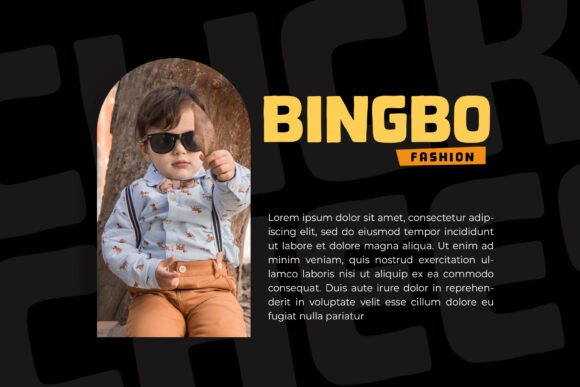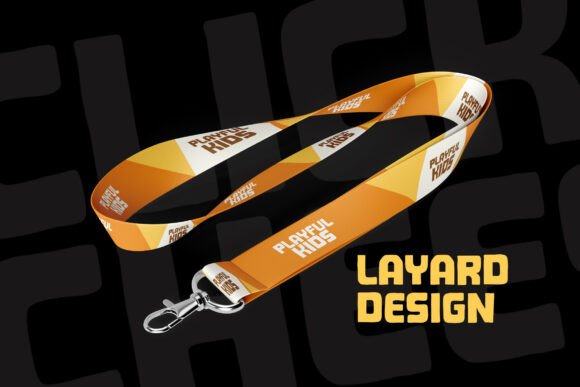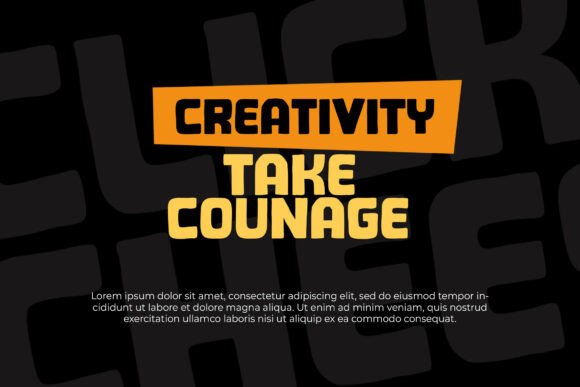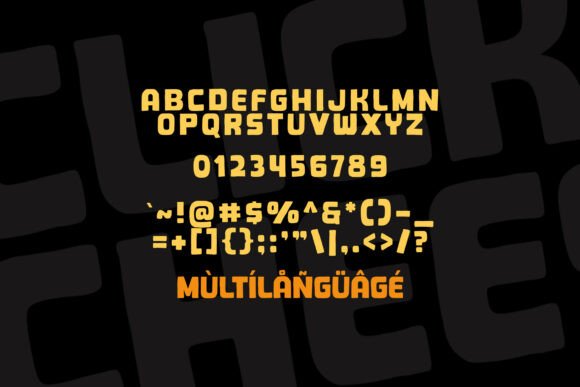
The Moment of Creative Inspiration
Have you ever been stuck in a design rut, struggling to find the perfect font to bring your vision to life? That’s when the spark of creativity strikes, and you start searching for something truly unique and eye-catching. For designers, the hunt for the perfect font can be a thrilling adventure, and we’re excited to introduce you to a game-changing find – the Click Cheese Font.
This modern and quirky display font is more than just a pretty face; it’s a versatile tool designed to elevate your designs to the next level. Whether you’re working on a poster, logo, magazine cover, or book banner, the Click Cheese Font is sure to make your creations stand out. Its adaptability and unique charm make it an invaluable asset for designers looking to add a touch of personality to their projects.
Click Cheese Font Key Features
- Font Family: Click Cheese Font is a sans-serif font family designed for digital use.
- Font Size: Designed for optimal use at font sizes ranging from 10 to 48 points.
- Resolution: Optimized for high-resolution displays (Retina and above) with a resolution of 300 DPI or higher.
- Unique Characteristics: The font features a unique blend of modern and playful elements, making it suitable for creative and innovative projects.
Click Cheese Font Review
I recently had the chance to work with the Click Cheese Font, and I must say it’s a unique addition to any design project. ✨ The font’s playful, whimsical feel is perfect for creating a fun and lighthearted atmosphere. It’s also highly legible, making it suitable for body text as well as headings.
- ✨ Great for creating a playful, youthful vibe
- ✨ Highly legible, making it suitable for body text
- ✨ Includes a wide range of characters and glyphs
However, I did encounter some limitations while working with the font. ⚠️ The font’s bold weights can sometimes feel a bit too condensed, making it difficult to read in certain contexts. Additionally, the font’s italic styles can be a bit inconsistent, which may require some adjustments to ensure proper alignment.
- ⚠️ Bold weights can feel condensed and difficult to read in certain contexts
- ⚠️ Italic styles can be inconsistent
Overall, I’d say the Click Cheese Font is a solid choice for designers looking to add some whimsy to their projects. While it may not be perfect, its unique feel and high legibility make it a great addition to any design arsenal.
Getting the Most Out of Click Cheese Font
Click Cheese Font is versatile and can be used in a variety of design contexts. To get the most out of it, experiment with different font sizes, colors, and combinations with other design elements. You can also use it to create a consistent brand identity or add a touch of whimsy to your designs.
Click Cheese Font is commonly used for:
- Food and beverage branding
- Children’s product packaging
- Playful advertising campaigns
- Whimsical event invitations